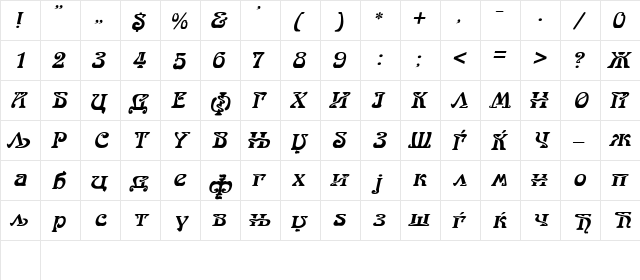
Mak_Arabia Italic
Design Context for Mak_Arabia Typeface
Mak_Arabia is a composed and adaptable typeface that performs quietly and consistently across a wide range of design contexts. Its italic angle brings a sense of urgency and motion to the letterforms.
Pro Tip: Use Mak_Arabia for emphasis, pull quotes, and subheadings where its slanted energy can add rhythm to the layout.